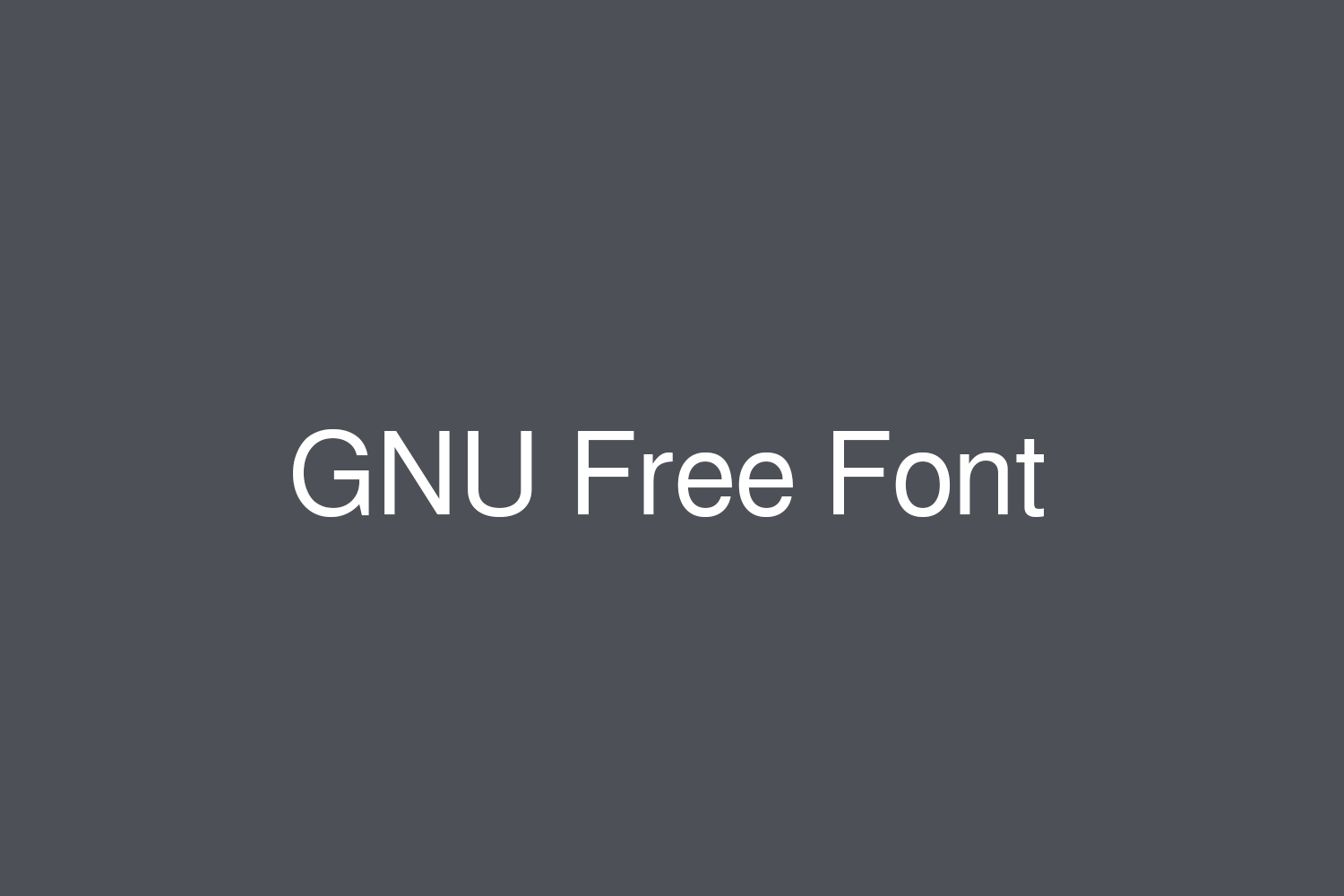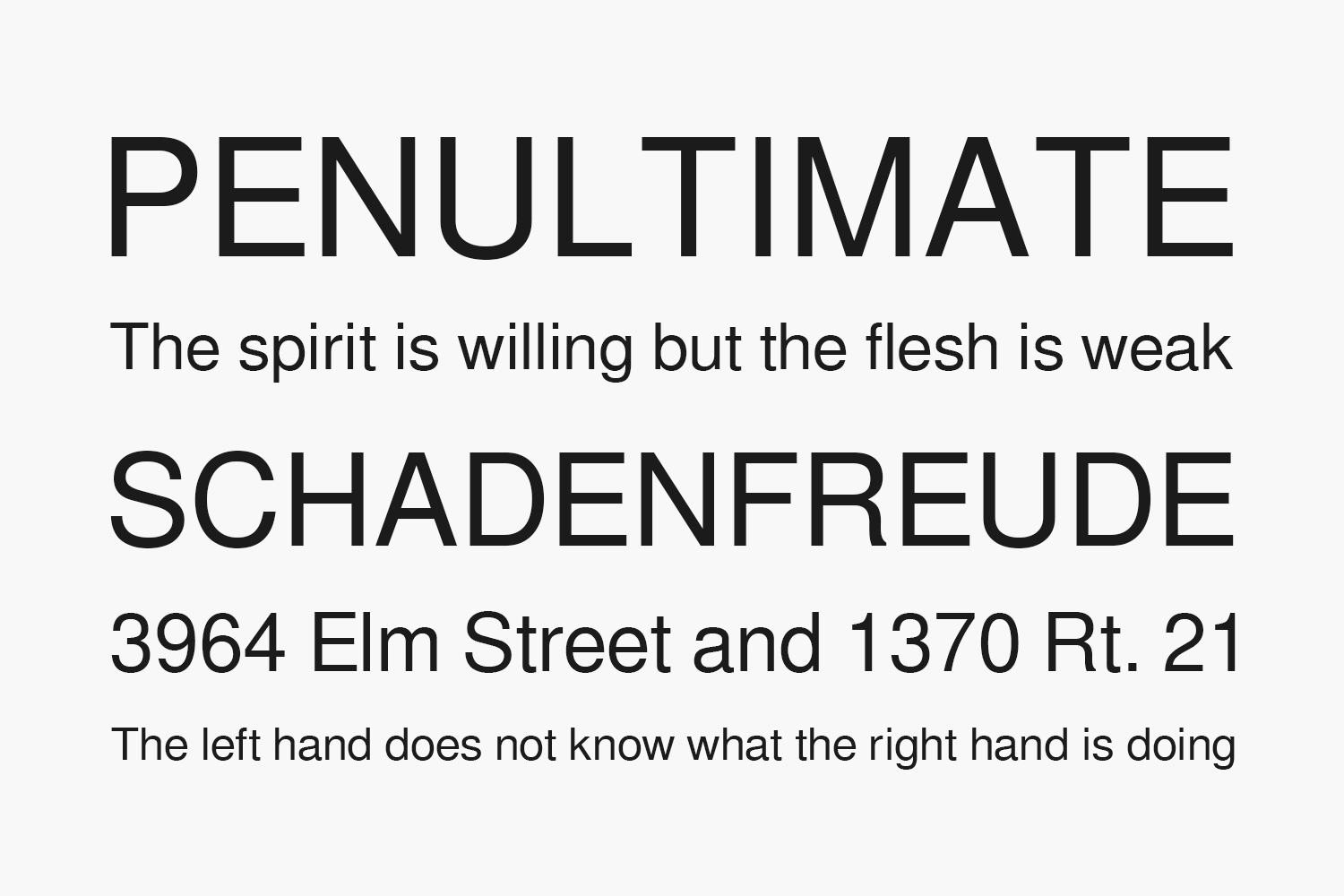
GNU Free Font Family is a part of the GNU Project.
We aim to provide a useful set of free outline (i.e. OpenType) fonts covering as much as possible of the Unicode character set. The set consists of three typefaces: one monospaced and two proportional (one with uniform and one with modulated stroke).